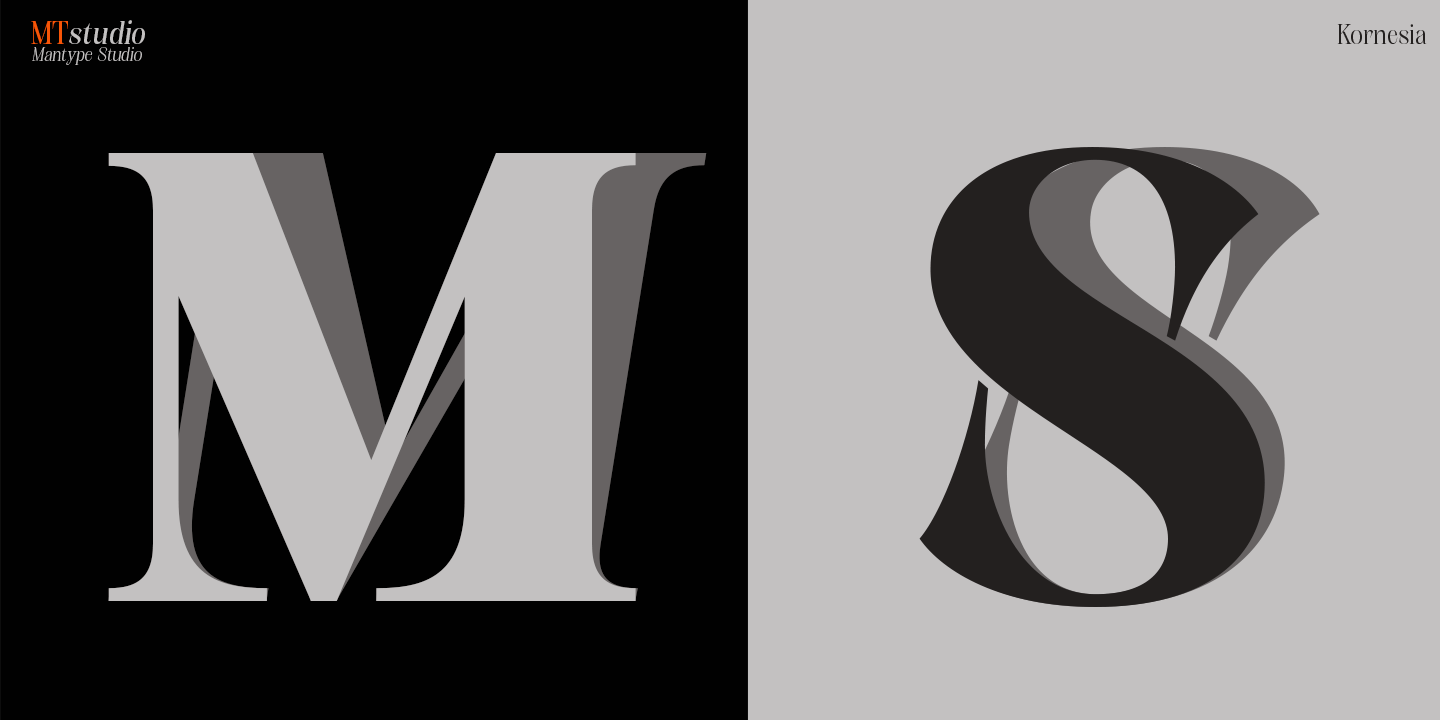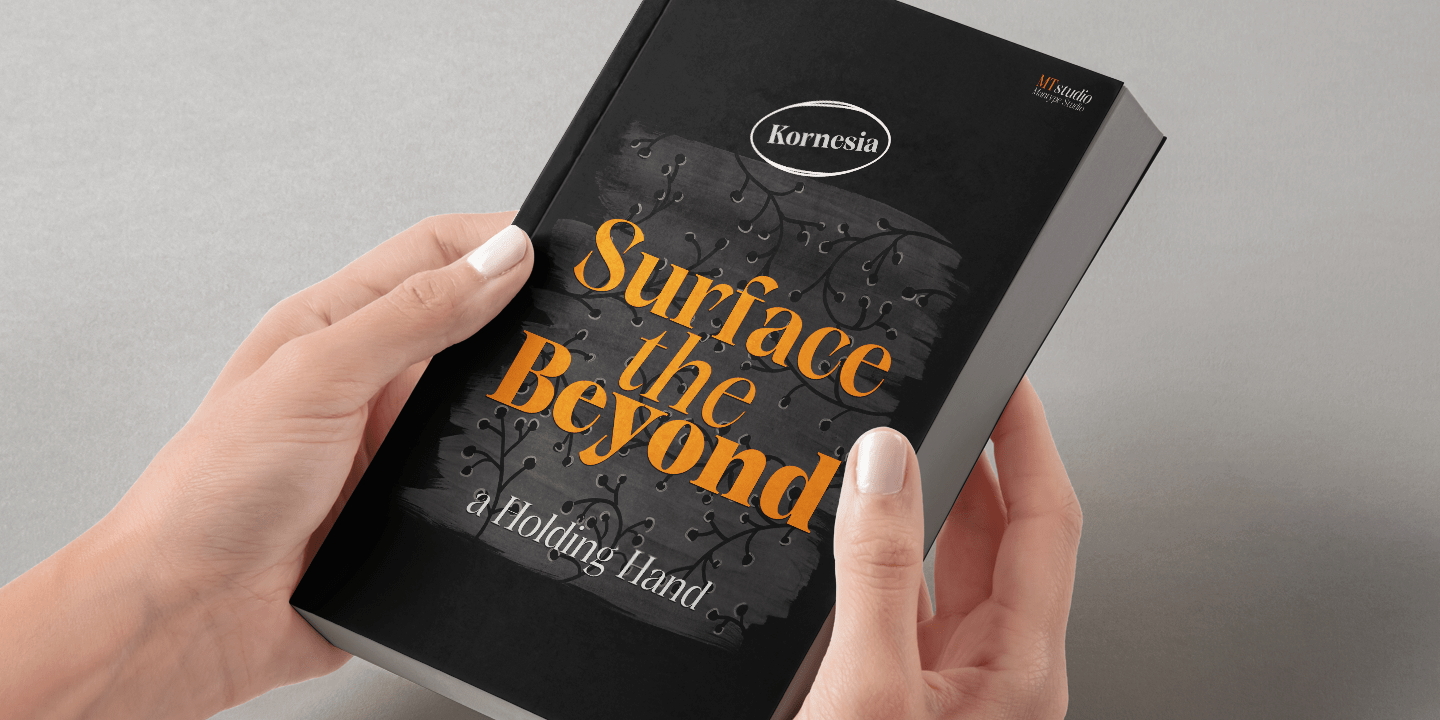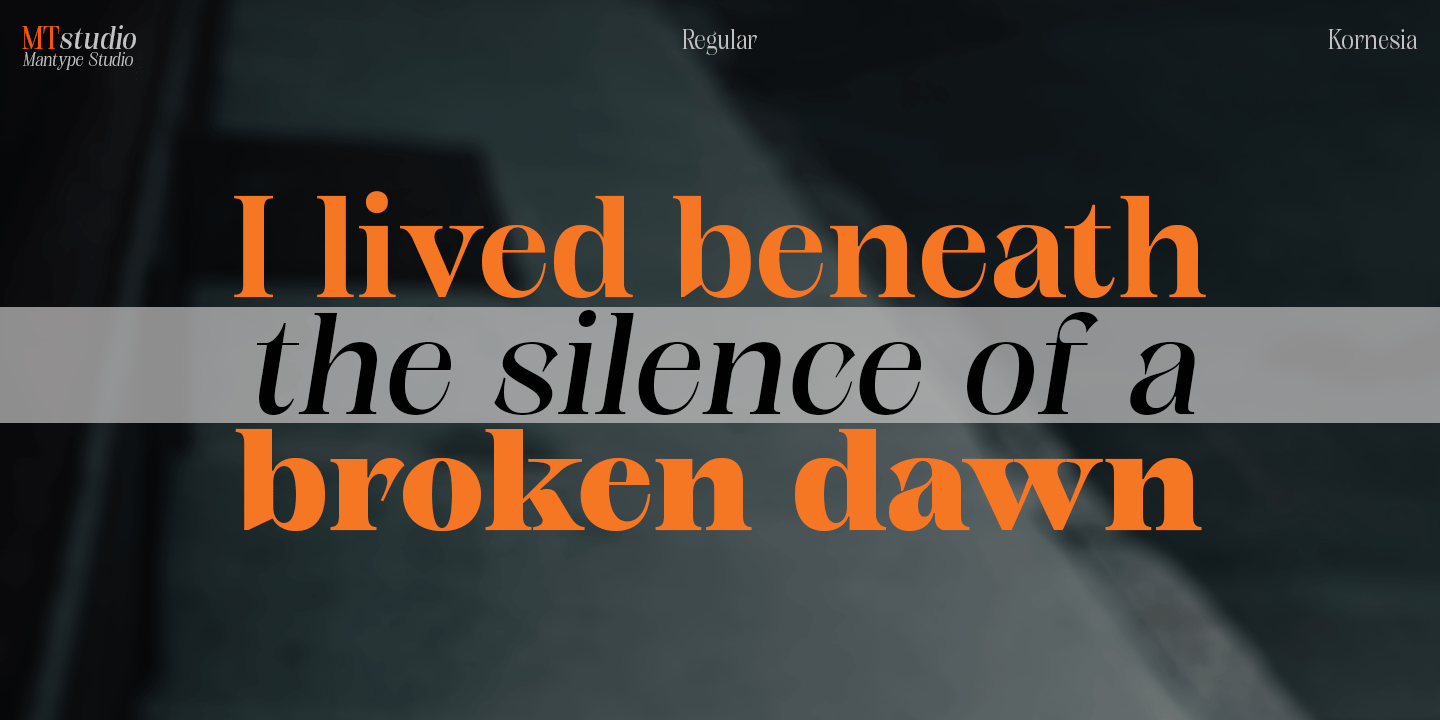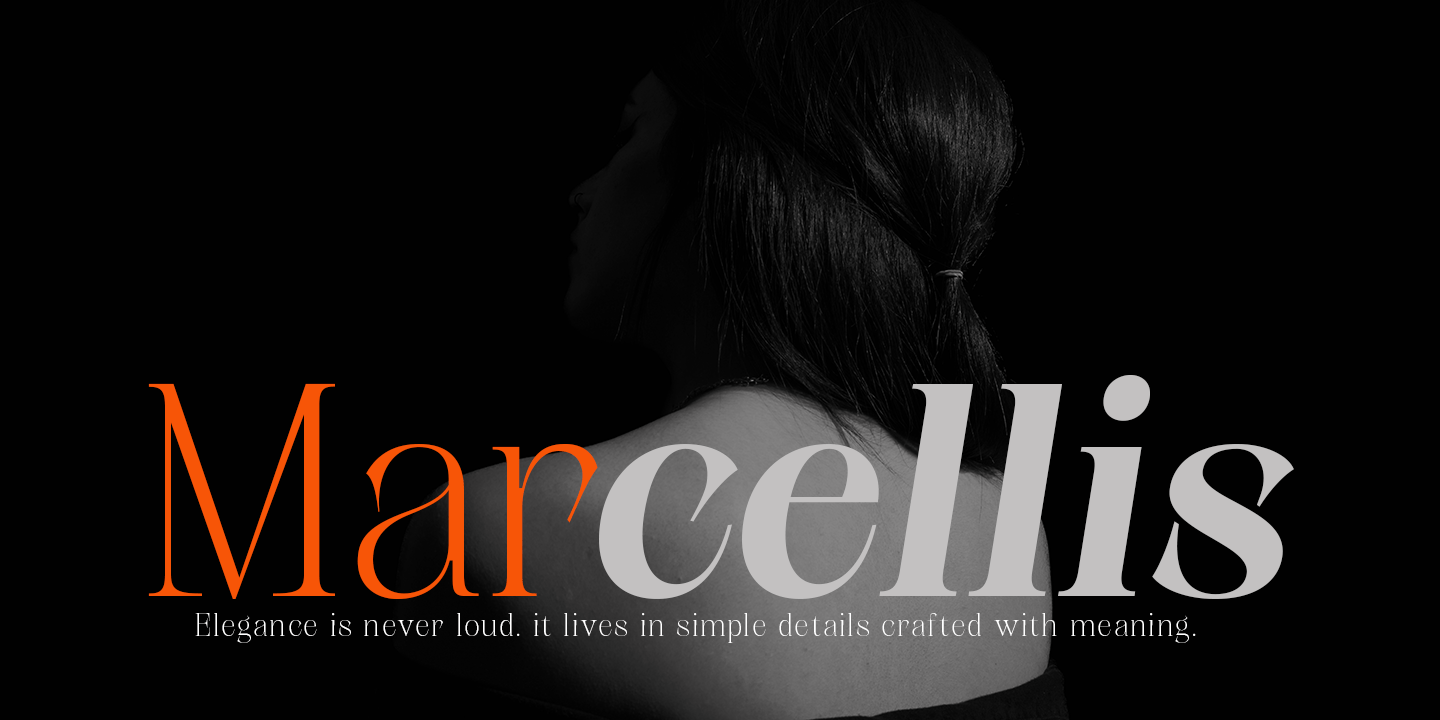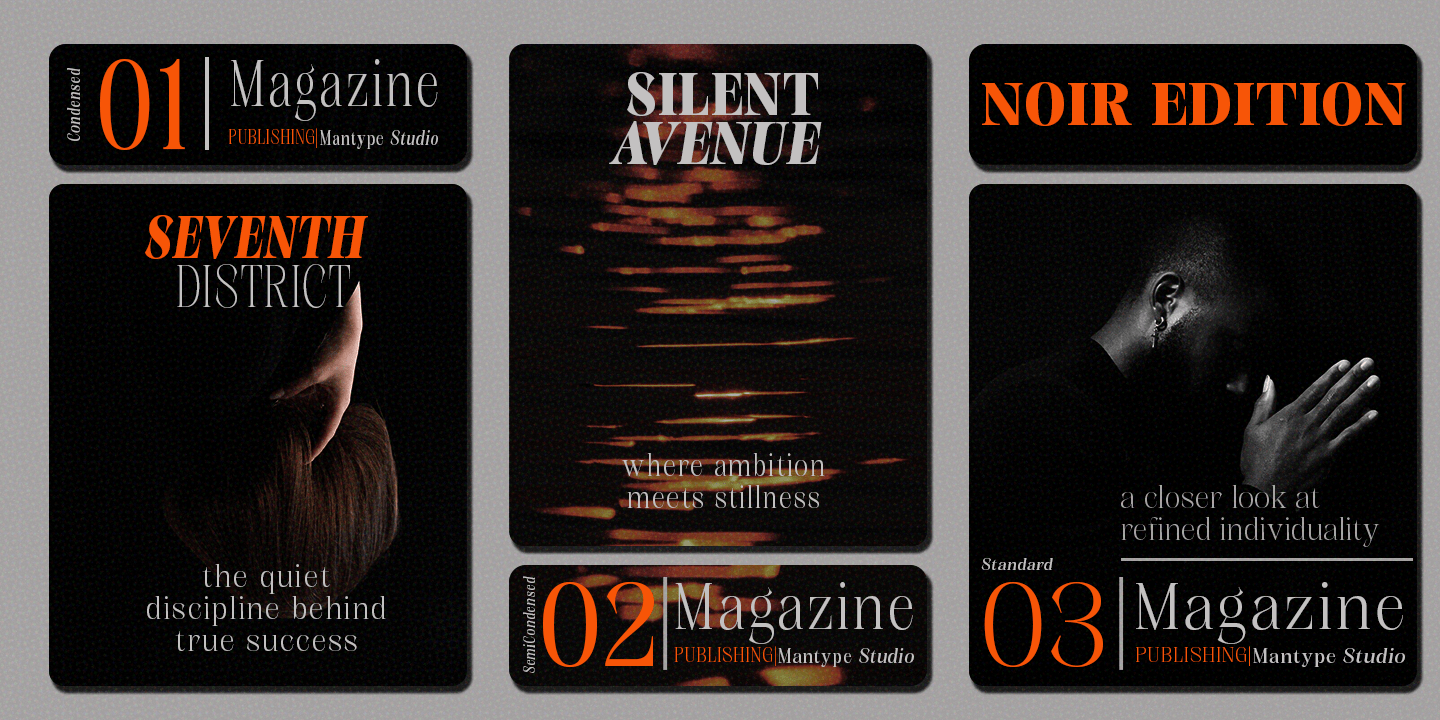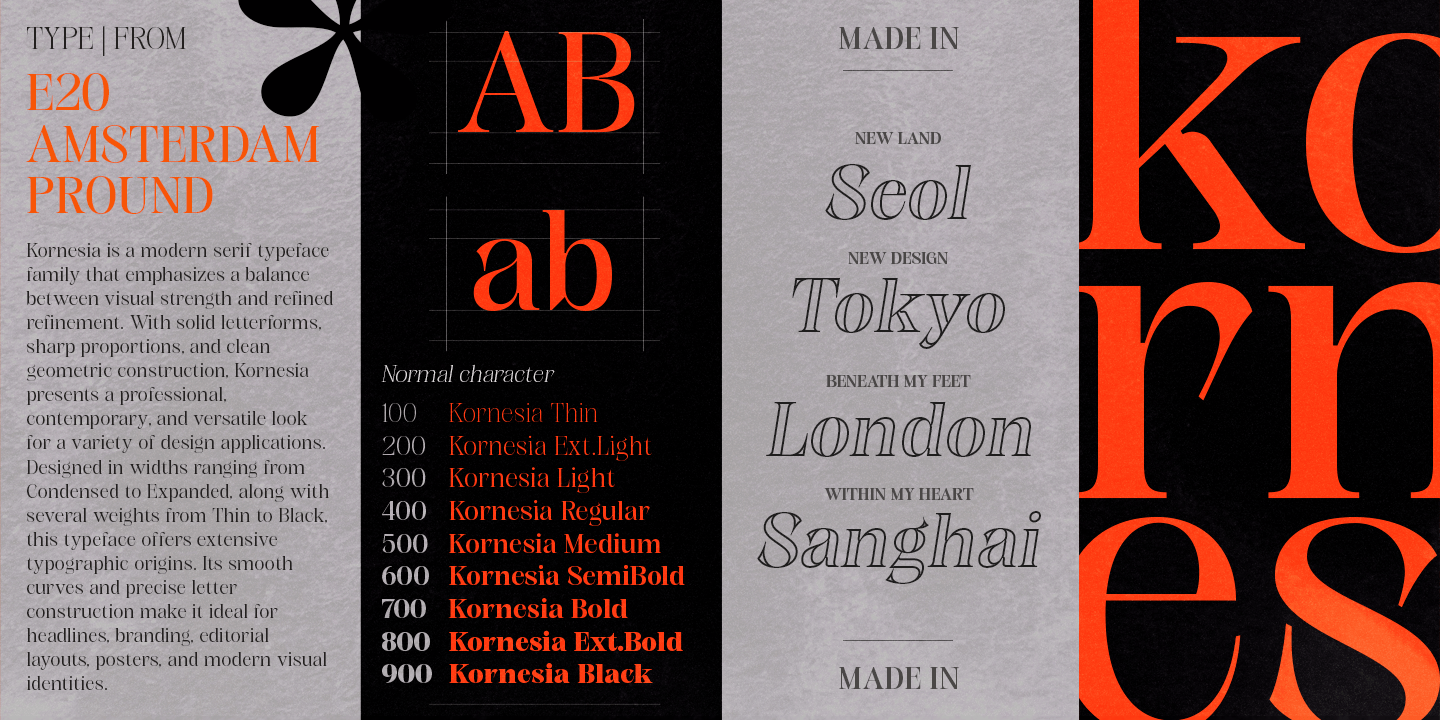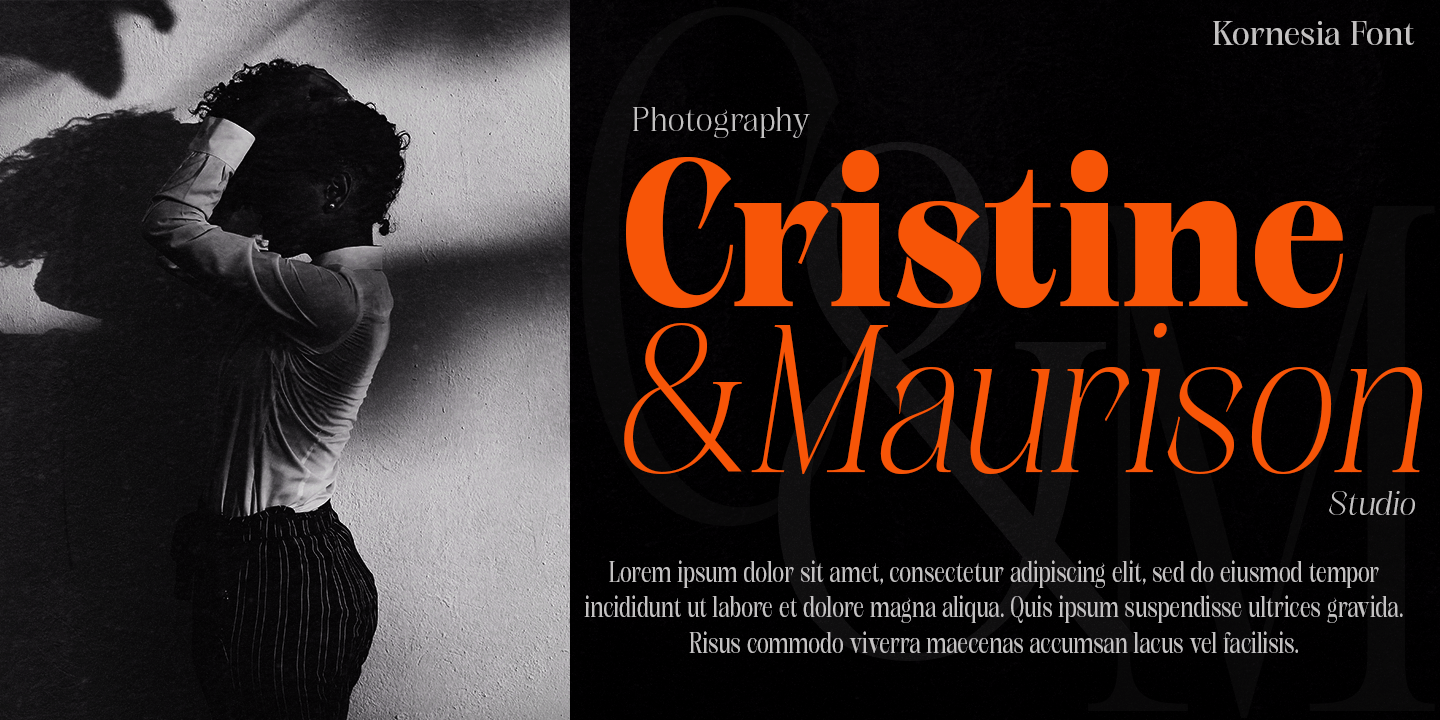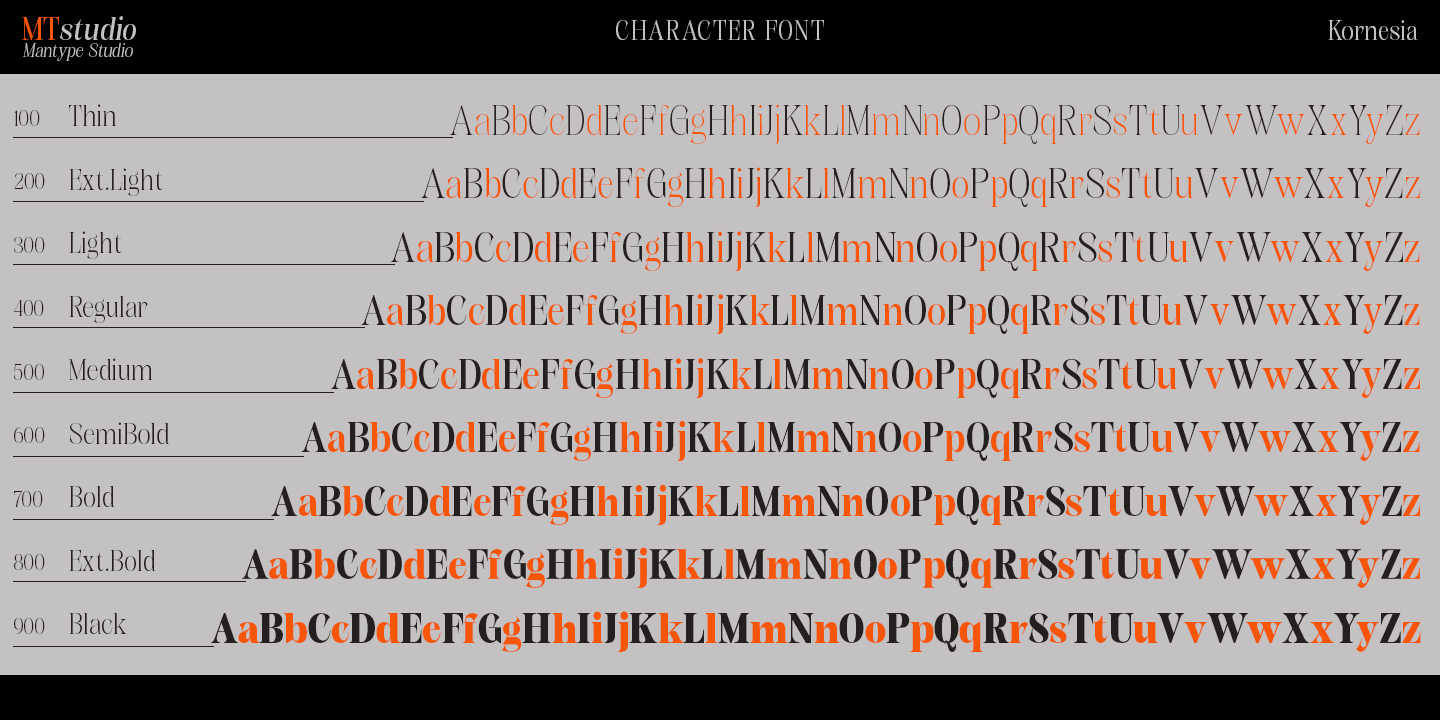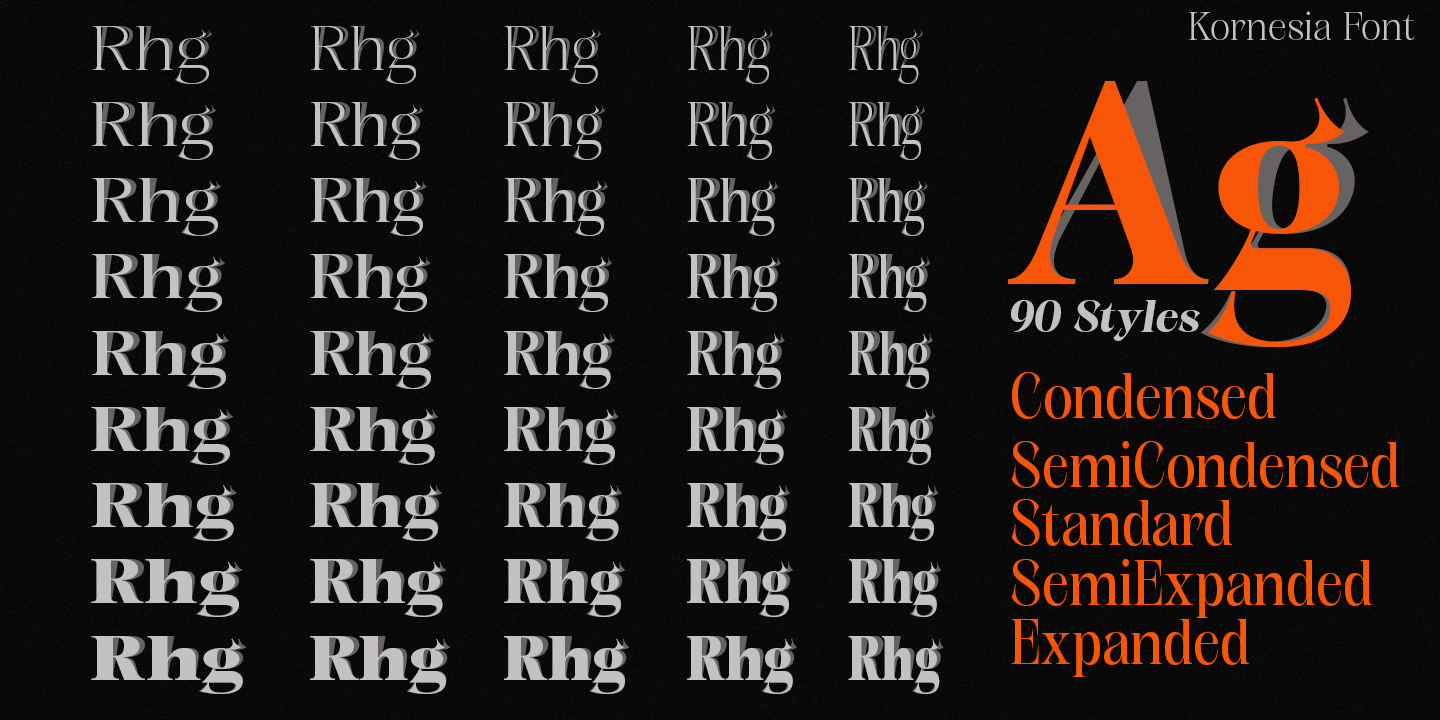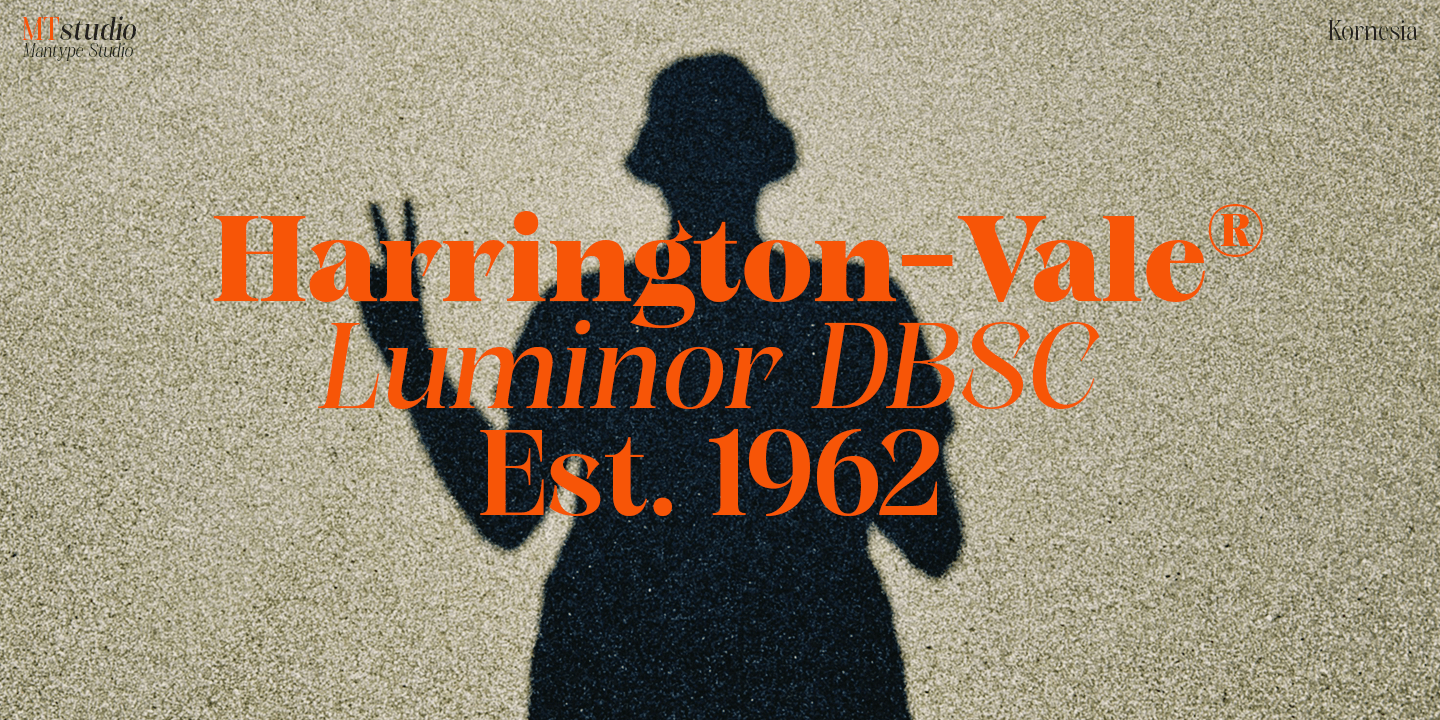
Kornesia
91 Font Family by Mantype Studio
Kornesia is a luxury serif typeface that blends classic elegance with a bold modern character. Featuring high contrast between thick and thin strokes, it delivers a refined, exclusive, and high-end visual impression. Its sharp yet smooth serifs create a strong rhythm while maintaining a sophisticated aesthetic. The wide and open proportions allow it to stand out beautifully in headlines, while its precise curves add an artistic and polished touch. Kornesia is also designed as a variable font, offering flexibility in weight, width, and oblique styles, making it highly adaptable for various design needs. It is ideal for premium branding, fashion magazines, editorial layouts, logos, and high-end packaging that aim to convey a strong, elegant, and distinctive visual identity.